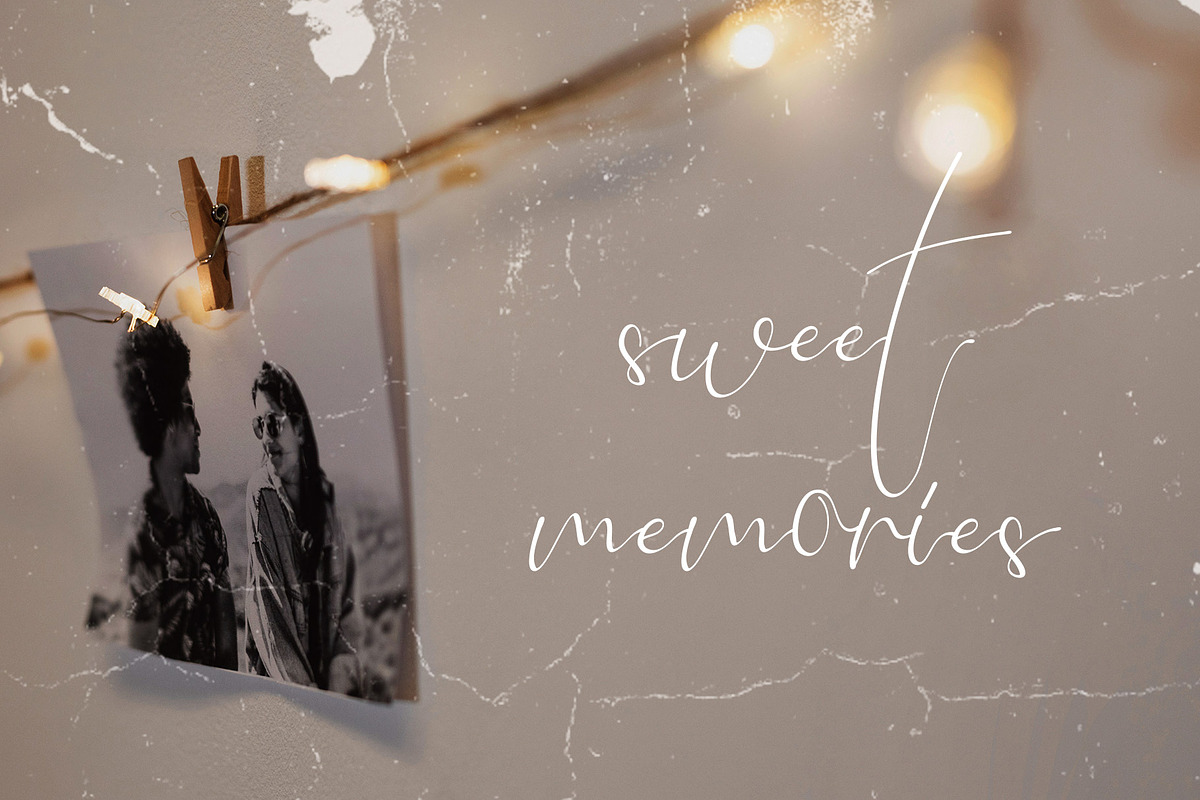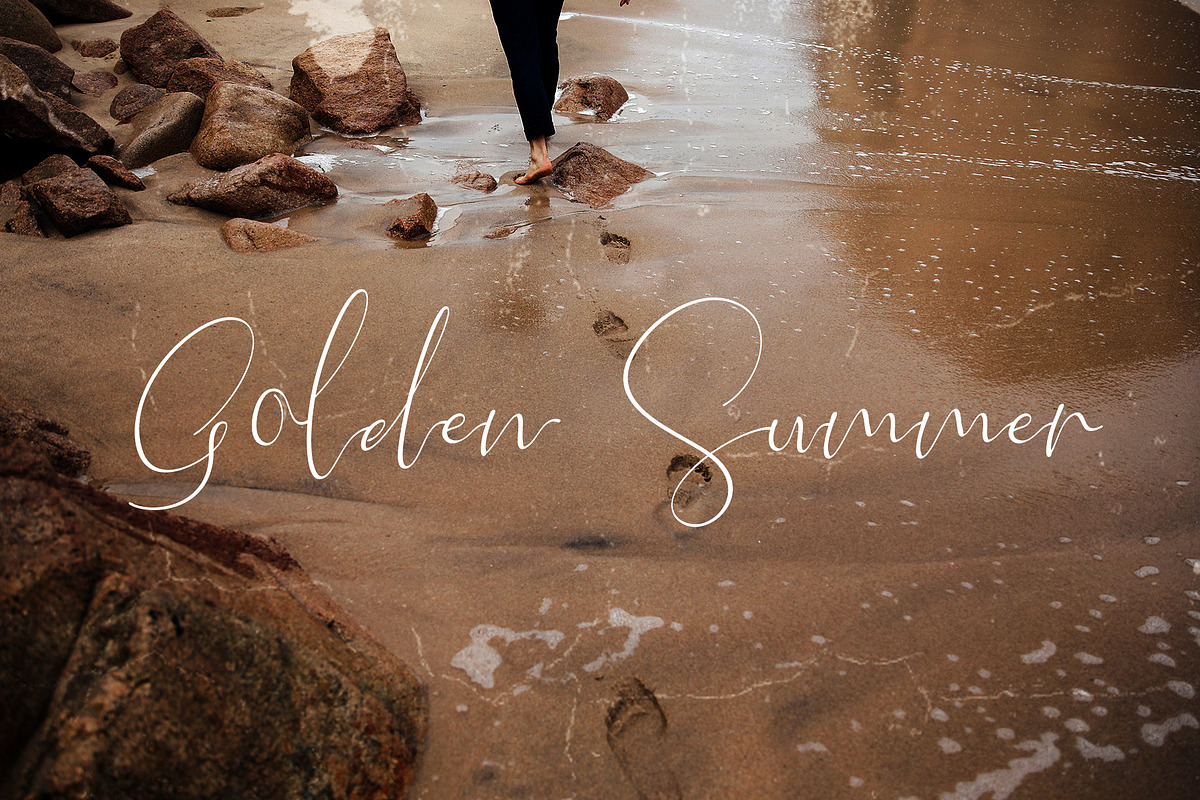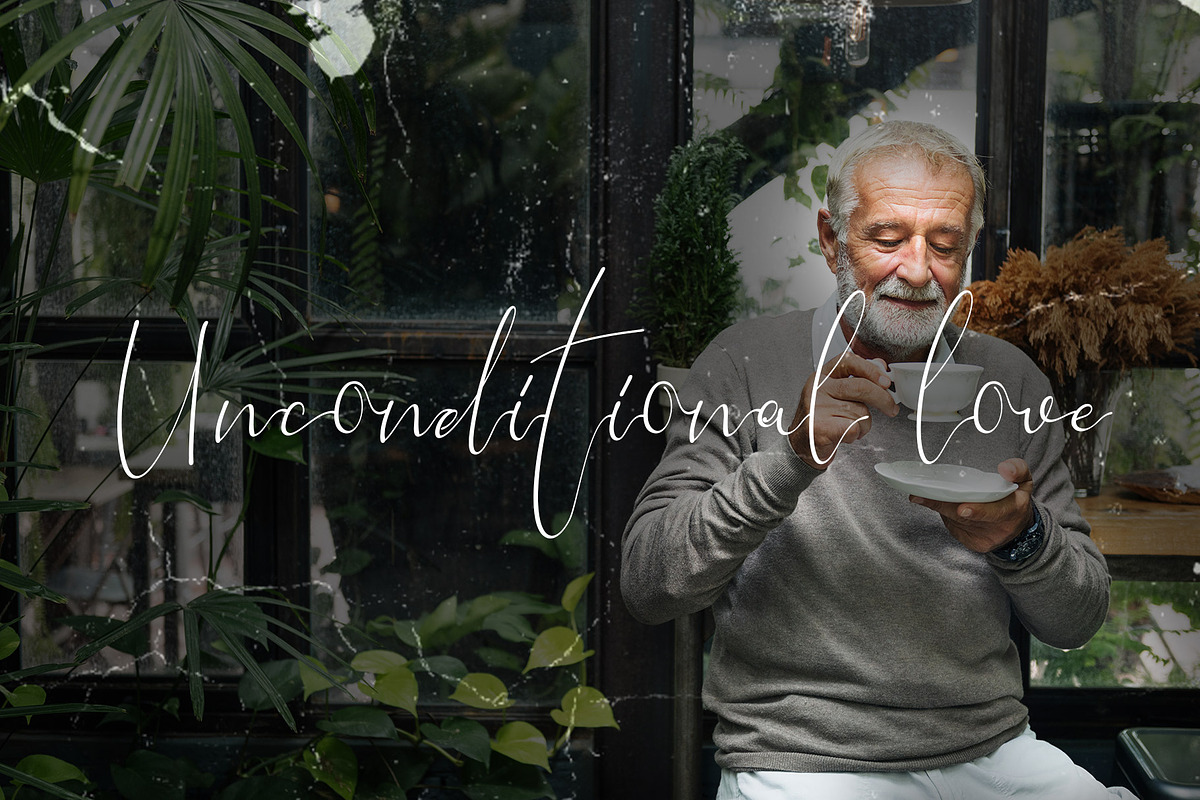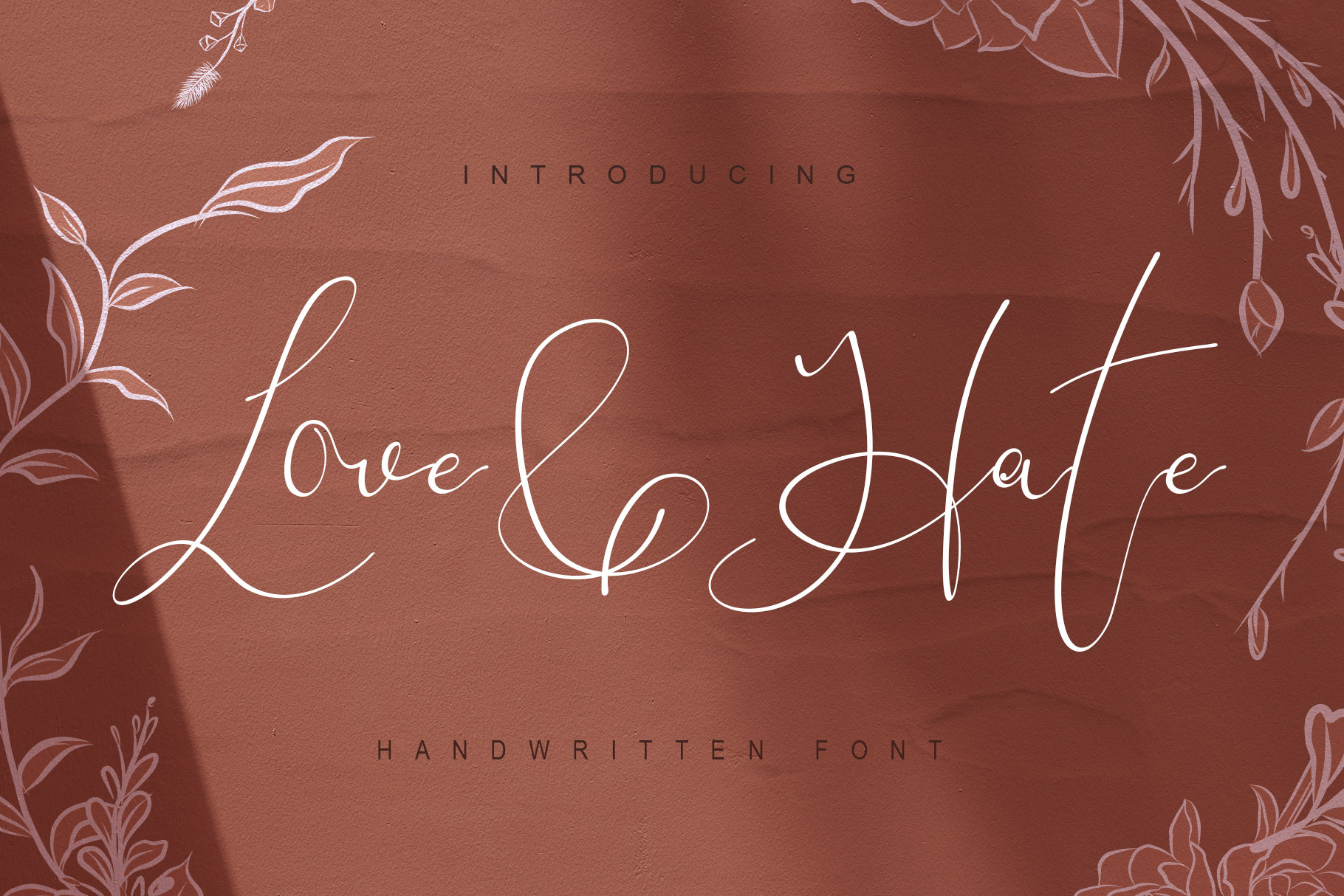
Love and Hate - Handwritten Font
Introducing Love and Hate - Handwritten Font
This font is great for branding materials, quotes, business cards, headings, blogs, logos, Cricut artwork, posters and more!